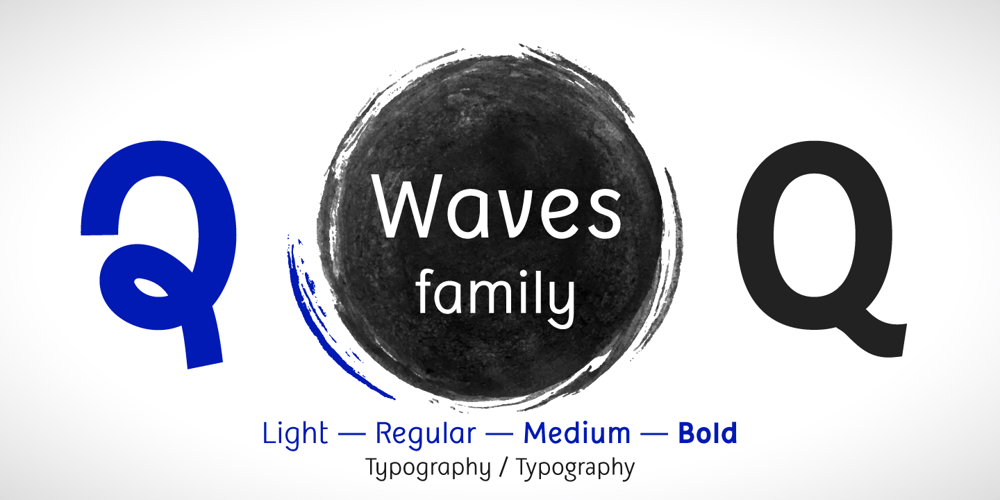
Waves Font Family was designed by Radko Hromátka and published by Radko Hromátka. Waves contains 4 styles and family package options. Waves is a sans serif typeface with pure but expressive look, which is notable even in smaller sizes. The softly decorative characters are also nicely visible in bigger sizes what makes Waves unique. A user can choose from two sets in all four weights. Each font features alternate letters, offers wide sets of characters including fractions and language support with all characters for Central European countries.